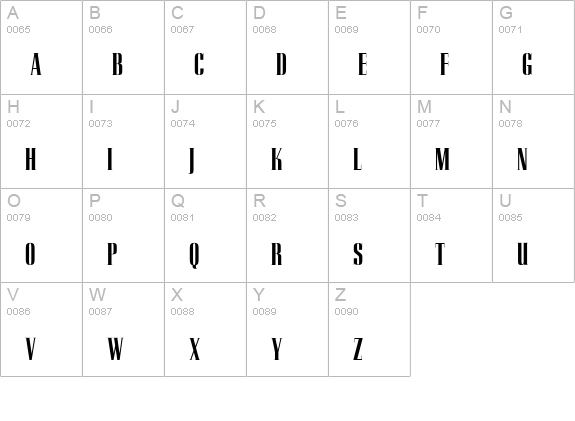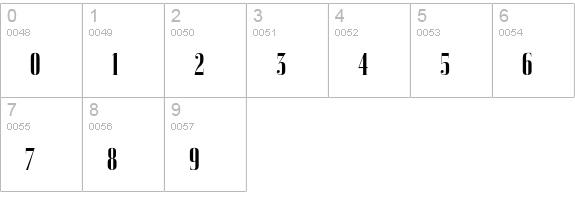
Skyline-BoldCondensed Font Details
Skyline-BoldCondensed font is a bold and eye-catching typeface that will leave a lasting impression on any design project. Its condensed form adds a touch of modernity and elegance, making it perfect for headlines, titles, logos, and branding materials. With its strong and confident letterforms, Skyline-BoldCondensed exudes a sense of power and authority, making it ideal for projects that require a bold statement. Whether you're creating posters, magazine covers, or advertising materials, this font will grab attention and demand to be noticed. Not only does Skyline-BoldCondensed possess a striking design, but it also comes with the added bonus of being freely available to download at FontsMarket.com. This means that you can enhance your creative projects without any cost or hassle. The versatility of Skyline-BoldCondensed font allows it to be used across various design styles and themes. Pair it with other typefaces to create a harmonious and visually appealing composition, or let it stand alone as the main focal point. Whichever way you choose to utilize this font, it is sure to add a touch of professionalism and sophistication to your work. Download Skyline-BoldCondensed font today from FontsMarket.com and elevate your design projects to new heights. With its bold and condensed design, it will bring a sense of power and style to any project, all while being easily accessible and free of charge.